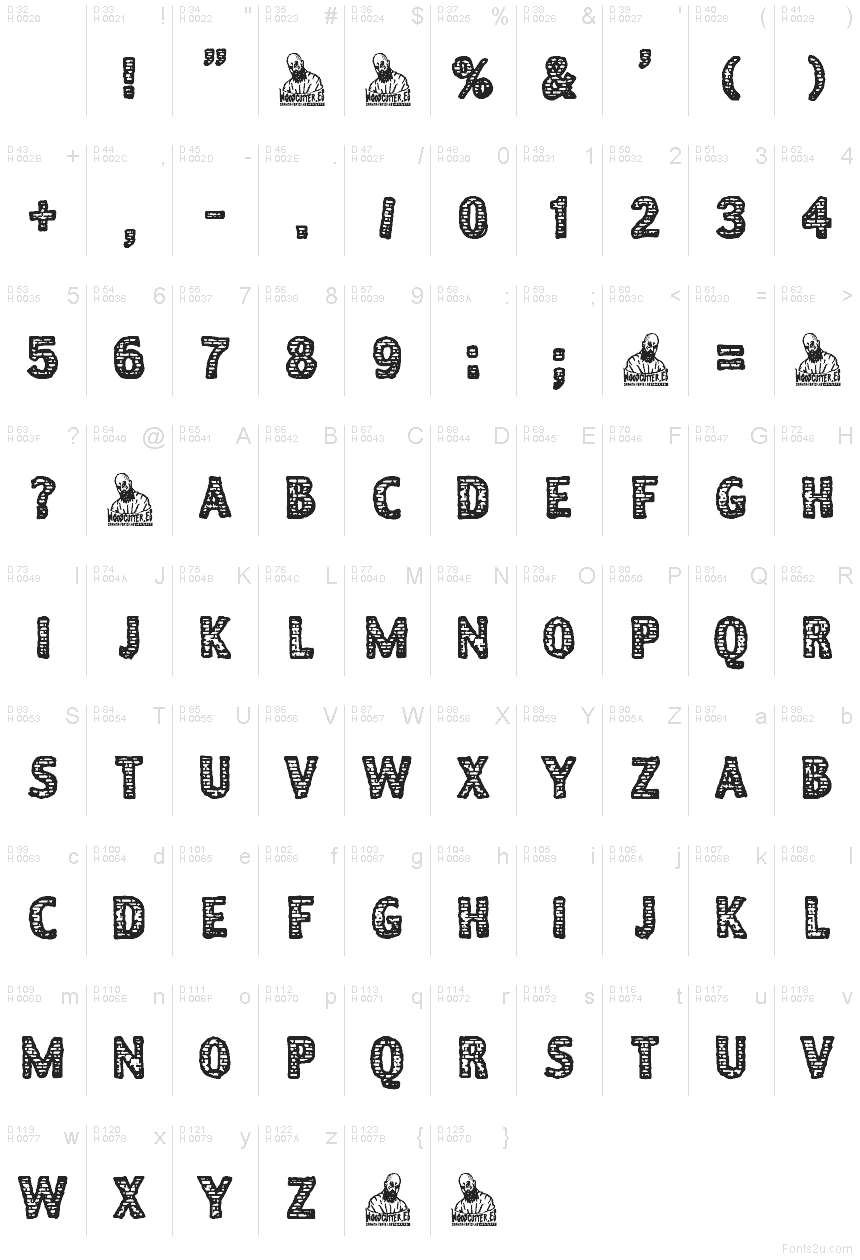
Cañada Real
Cañada Real font by Woodcutter Manero is a bold eroded display font inspired by woodcut styles and vintage appearance. The textured, distressed design gives it a unique handcrafted feel that comes with exceptional attention to detail with each glyph. Its ornamental patterns and rustic charm achieve distinctive typographic visual effects most designers long for.